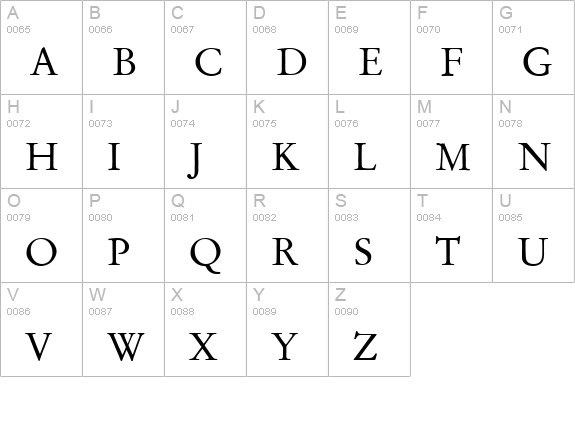
Garfeld-Original Font Details
Garfeld-Original font is a charming and versatile typeface that exudes a sense of whimsy and playfulness. With its unique blend of bold curves and elegant serifs, this font is perfect for a wide range of design projects, from branding to invitations to posters. The Garfeld-Original font is free to download at FontsMarket.com, making it easily accessible for designers and creatives looking to add a touch of flair to their work. Embrace the creativity and fun that Garfeld-Original font brings to your designs and let your imagination run wild with this delightful typeface.